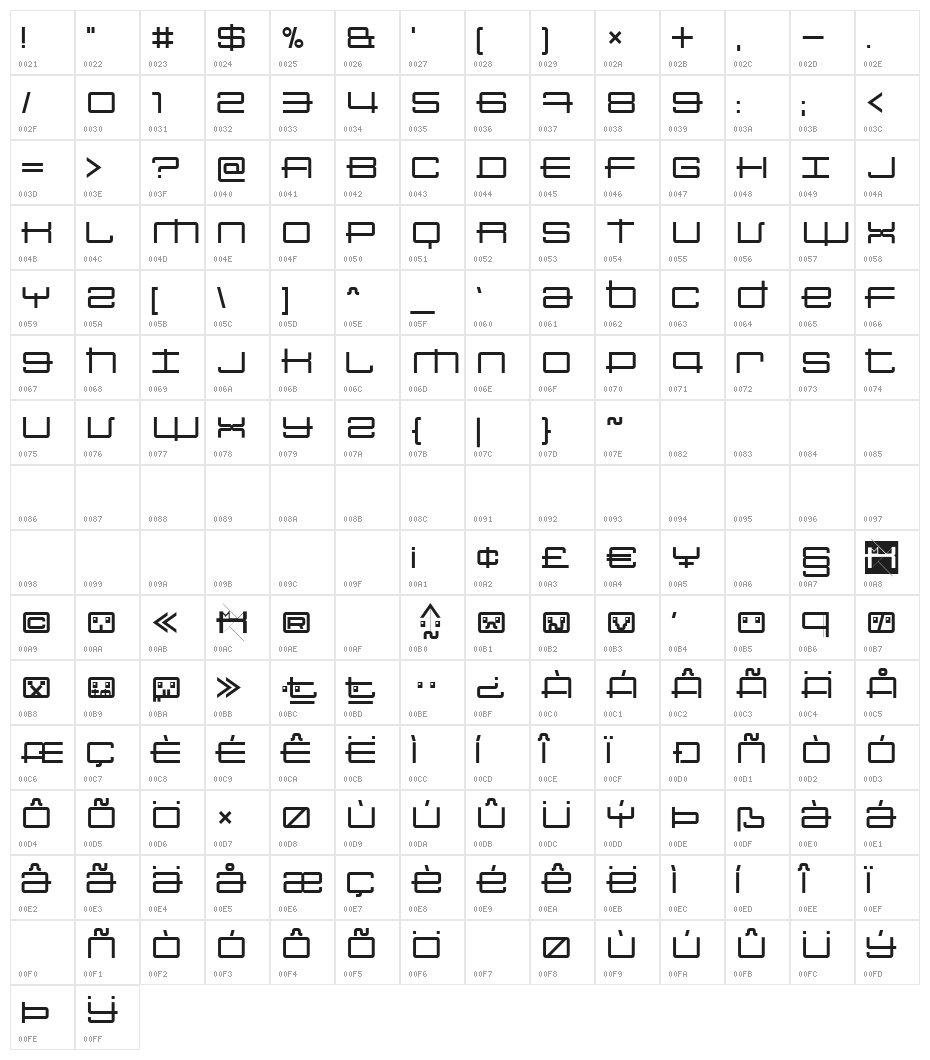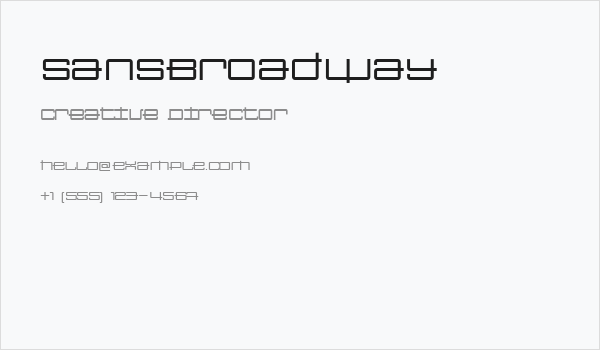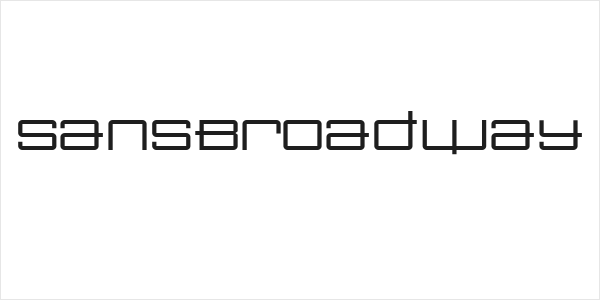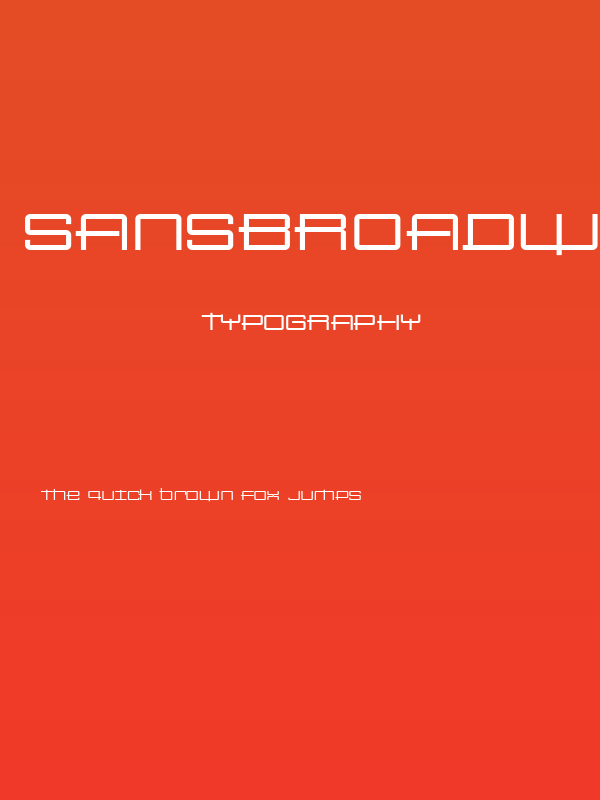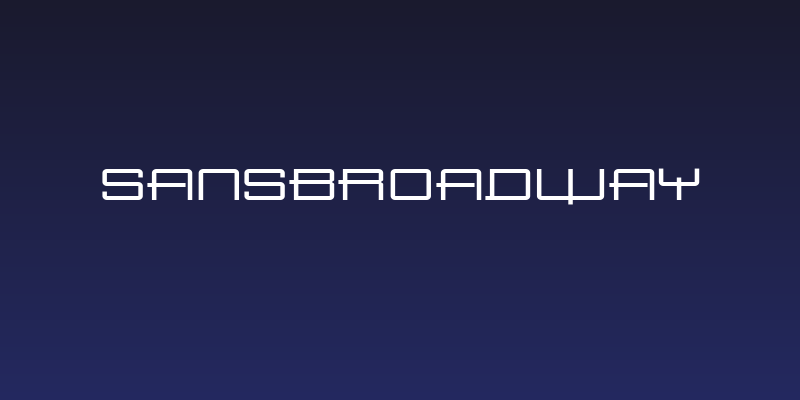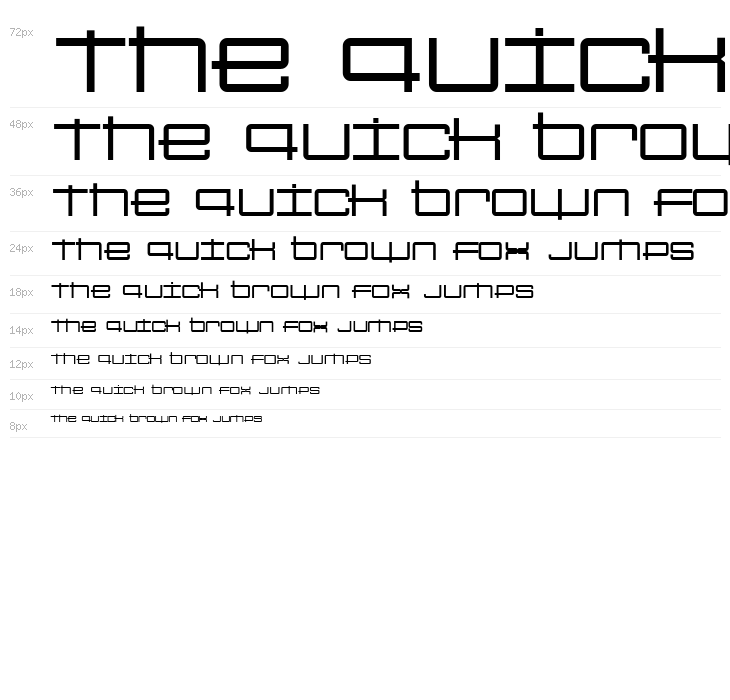
SansBroadway Font
SansBroadway Description
This font features a geometric and modern design with a distinct grid-like structure. Each character is composed of straight lines and right angles, giving it a digital and futuristic appearance. The uppercase and lowercase letters maintain a consistent height, contributing to a uniform look. The numerals and special characters follow the same design principles, ensuring cohesion across all glyphs. The font's clean lines and minimalistic style make it suitable for contemporary design projects. Its unique aesthetic is both eye-catching and functional, making it ideal for digital displays and modern branding.
| Use Case | Headlines, Logos, Digital displays |
| Proposed Projects | Ideal for digital displays, tech branding, modern posters, and futuristic design projects. |